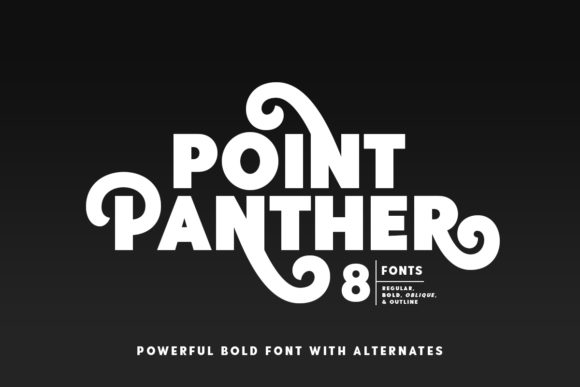
Introducing Point Panther Font, the ultimate choice for creating captivating and visually stunning music posters. This unique sans serif font, created by saridezra, offers a fresh and modern twist to your design projects. With its 8 amazing styles, Point Panther allows you to unleash your creativity and achieve an unparalleled visual impact.
When it comes to music posters, every detail matters. Point Panther Font guarantees to elevate your poster designs to a whole new level. Its sleek and stylish appearance captures attention instantly, making it the perfect choice for grabbing your audience's eye. Whether you're promoting a concert, a music festival, or a new album release, this font will undoubtedly leave a lasting impression.
What sets Point Panther Font apart from the rest is its versatility. With 8 different styles at your disposal, you have the freedom to experiment and find the perfect combination that aligns with your artistic vision. From bold and impactful to elegant and refined, this font collection has it all. Each style exudes its own personality, allowing you to convey different moods and emotions effortlessly.
Not only does Point Panther Font excel in aesthetics, but it also offers exceptional readability. The clean and crisp lines ensure that your message is conveyed with clarity, ensuring that your audience can easily absorb the information presented. Whether it's the name of a band, the date of an event, or the venue details, Point Panther Font ensures that your text remains legible and professional.
In conclusion, Point Panther Font is not just your ordinary font collection; it's a gateway to unlocking your creative potential and captivating your audience. Its unique styles, versatility, readability, and user-friendly nature make it the best font for music posters. Let Point Panther Font be the driving force behind your next design masterpiece and witness the power it holds in captivating your audience.